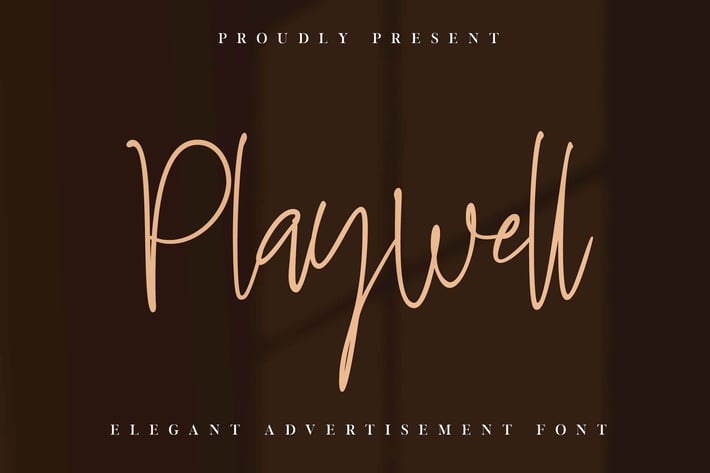
Playwell Business Signature Font
Playwell is elegant signature script font. It can easily be matched to an incredibly large set of projects like logo, package, advertisement, magazine, watermark, so add it to your creative ideas and notice how it makes them stand out!